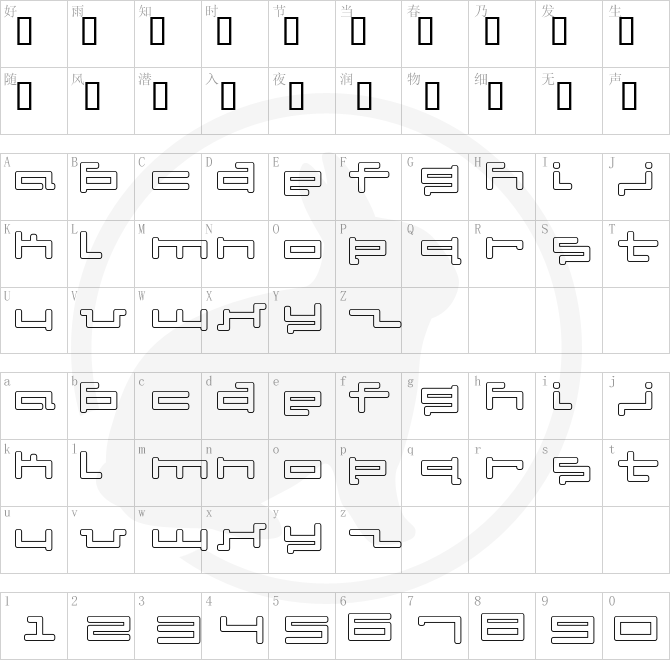
- Font Name:V5 Cuadra2
- Subfamily:Cuadra2 [Outline] - Designed by Roberto Christen
V5-Cuadra2-Outline.ttf is a very beautiful artistic font, V5-Cuadra2-Outline.ttf is widely used in the design and printing of various books and pictures,V5-Cuadra2-Outline.ttf has a strong visual impact,V5-Cuadra2-Outline.ttf is a commonly used font in newspapers, magazines and books, and is used in posters, e-commerce Poster design, store design, logo design, font design and other fields.V5-Cuadra2-Outline.